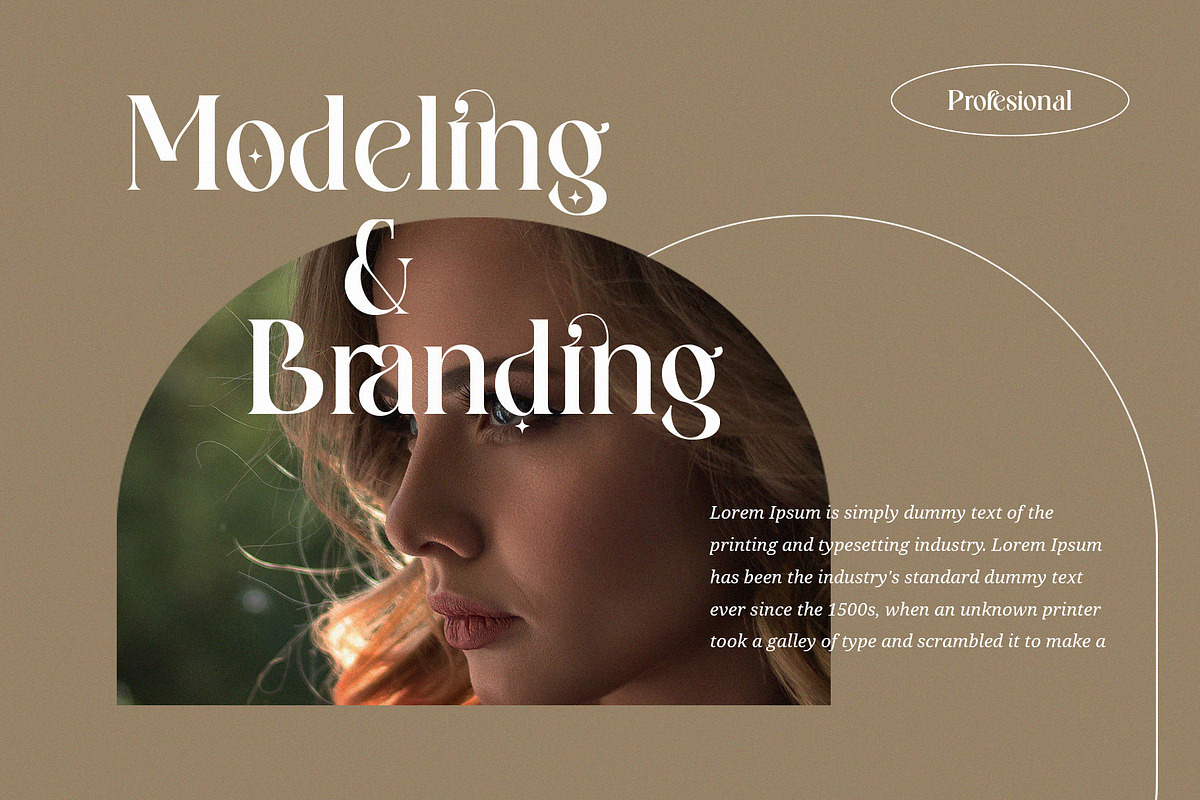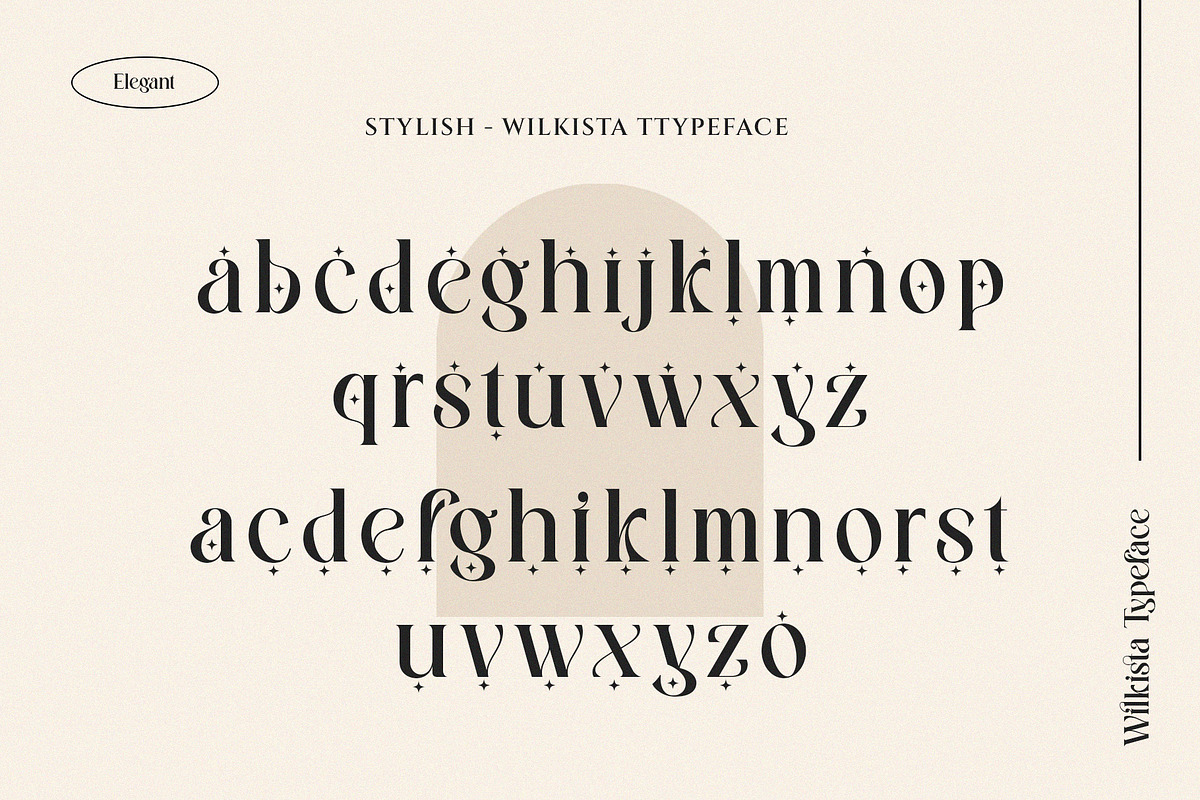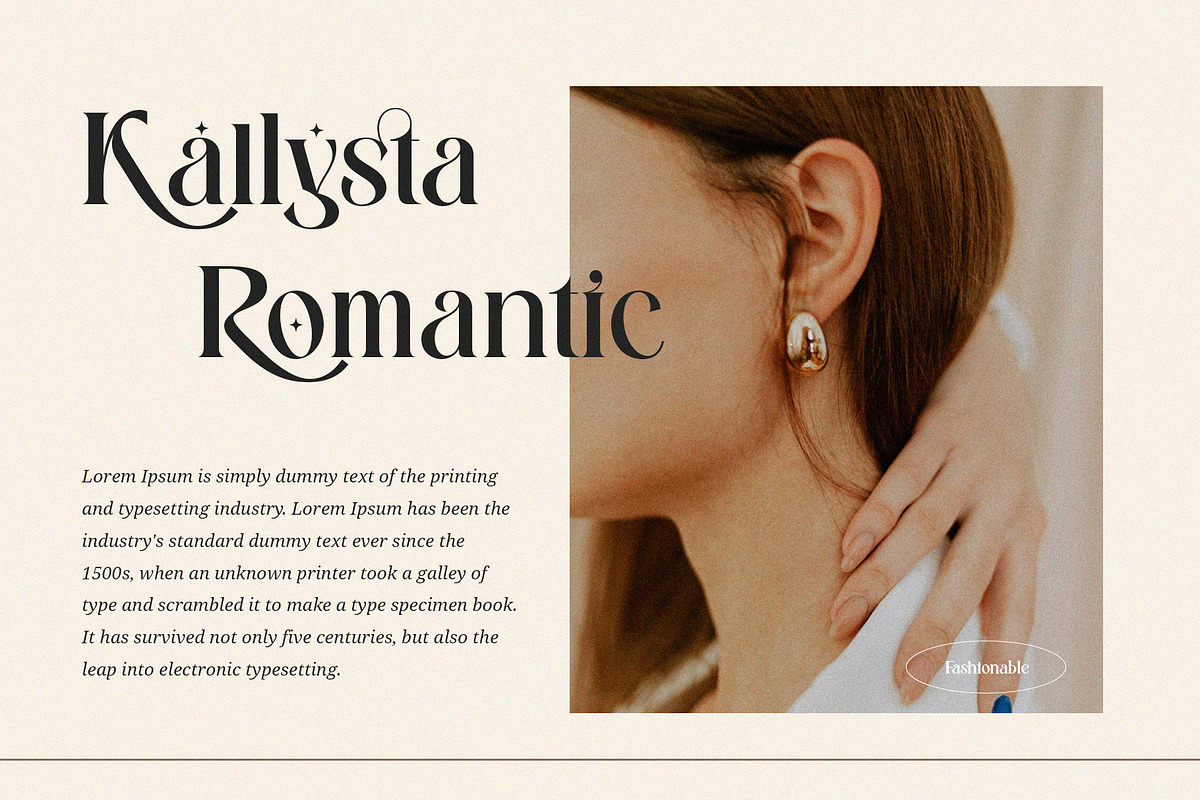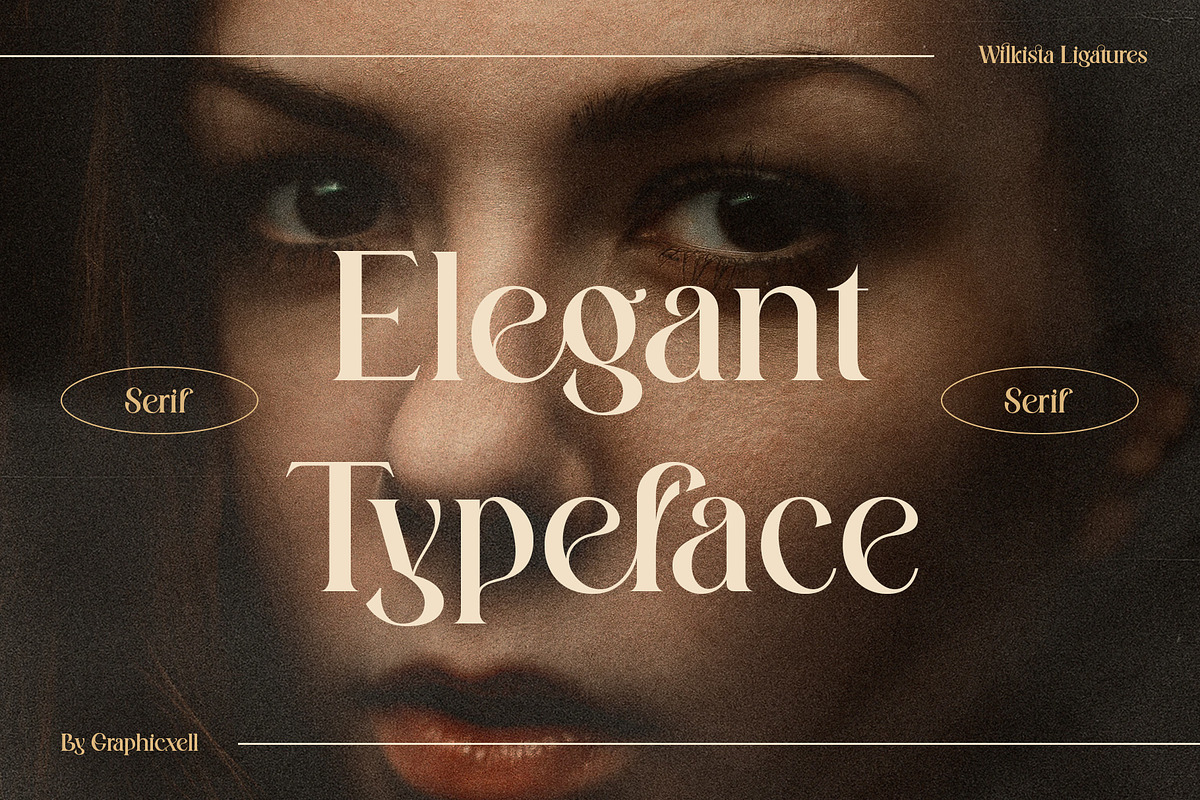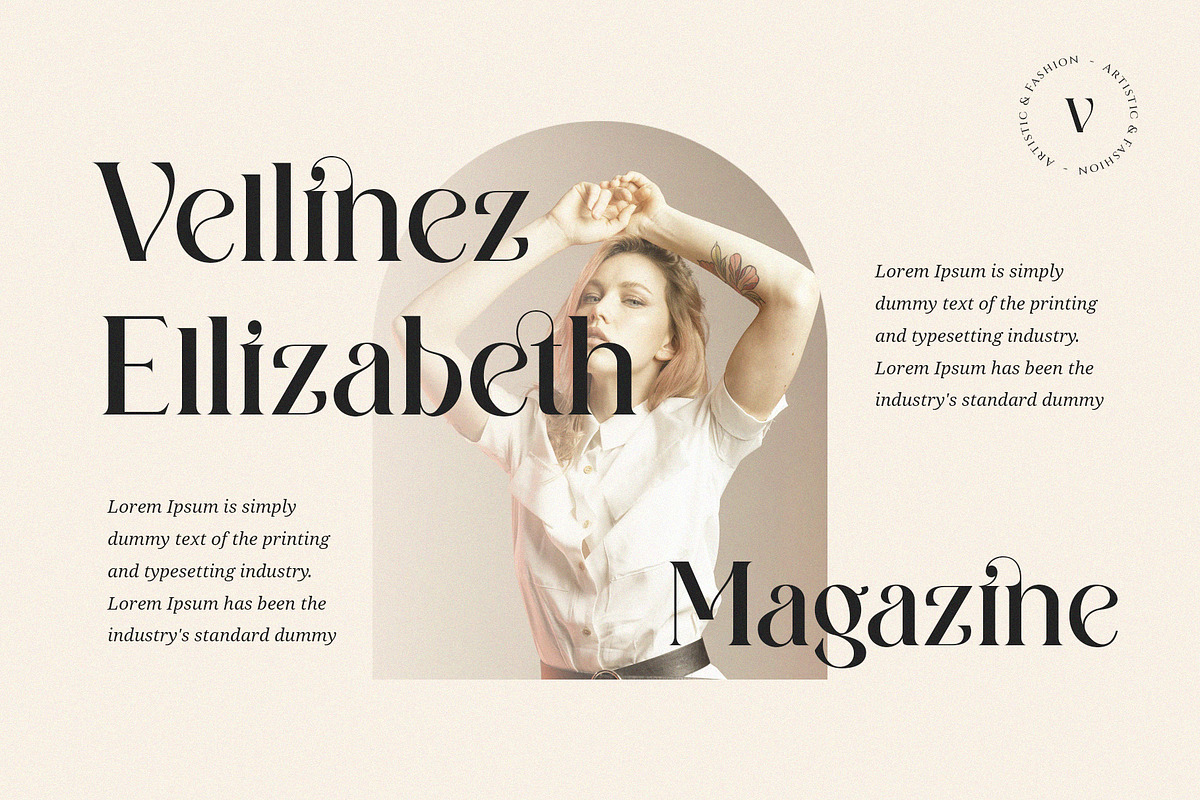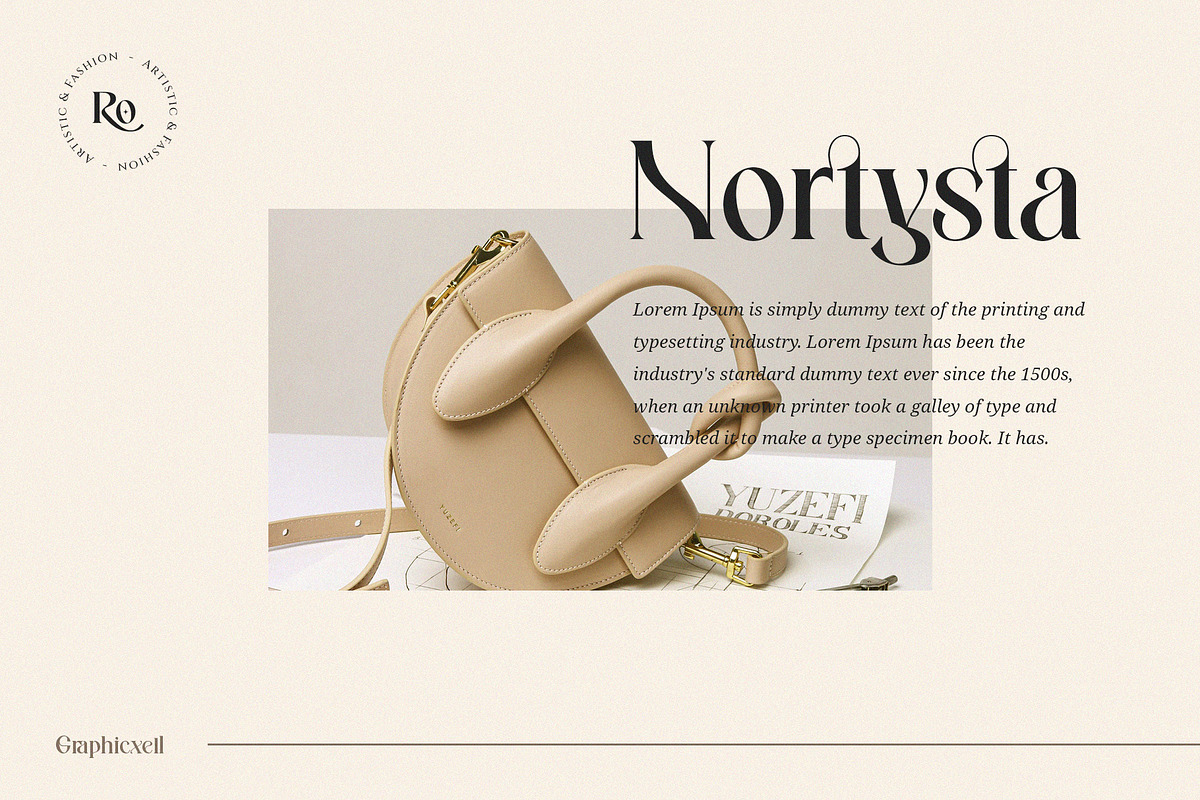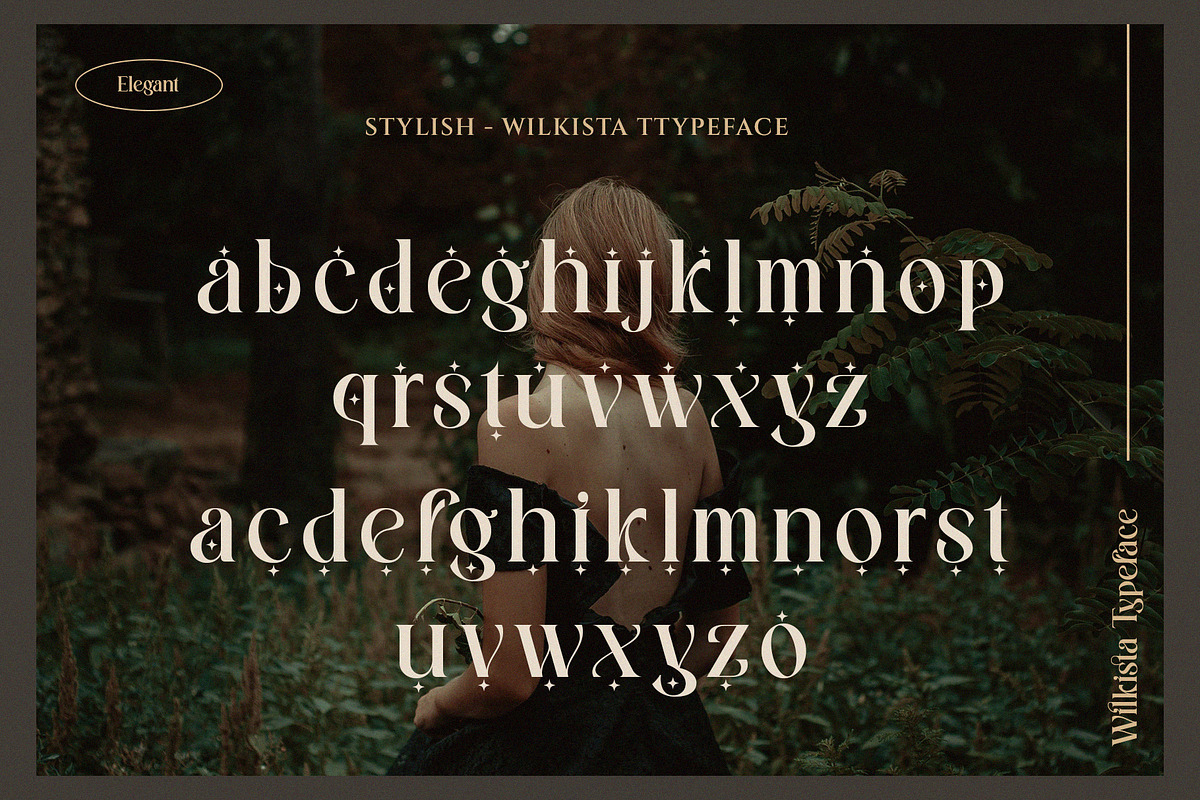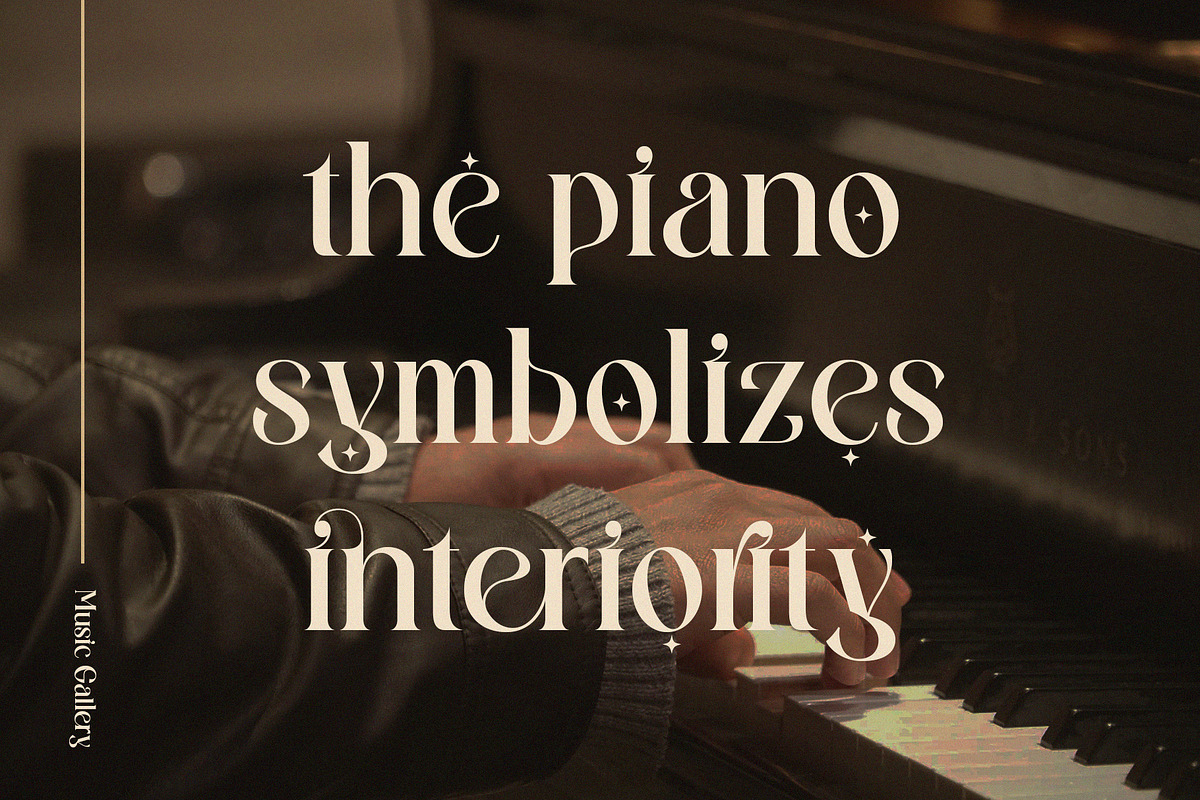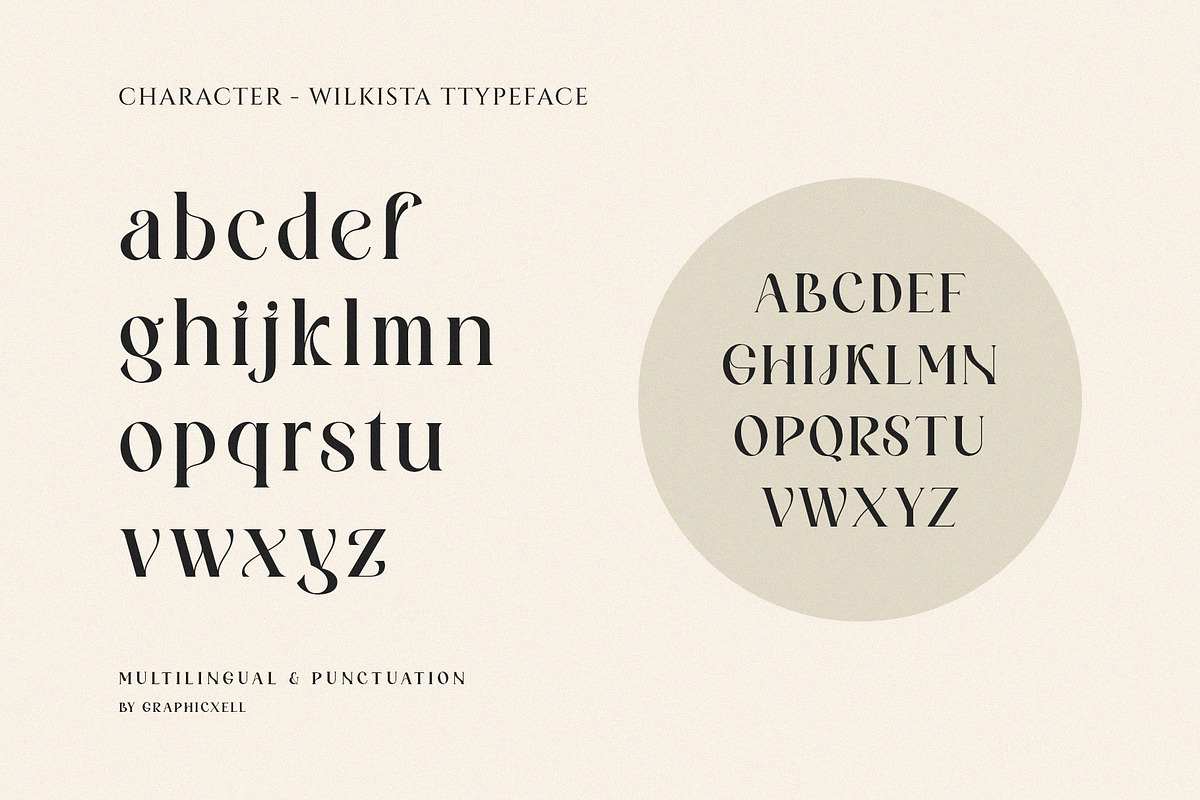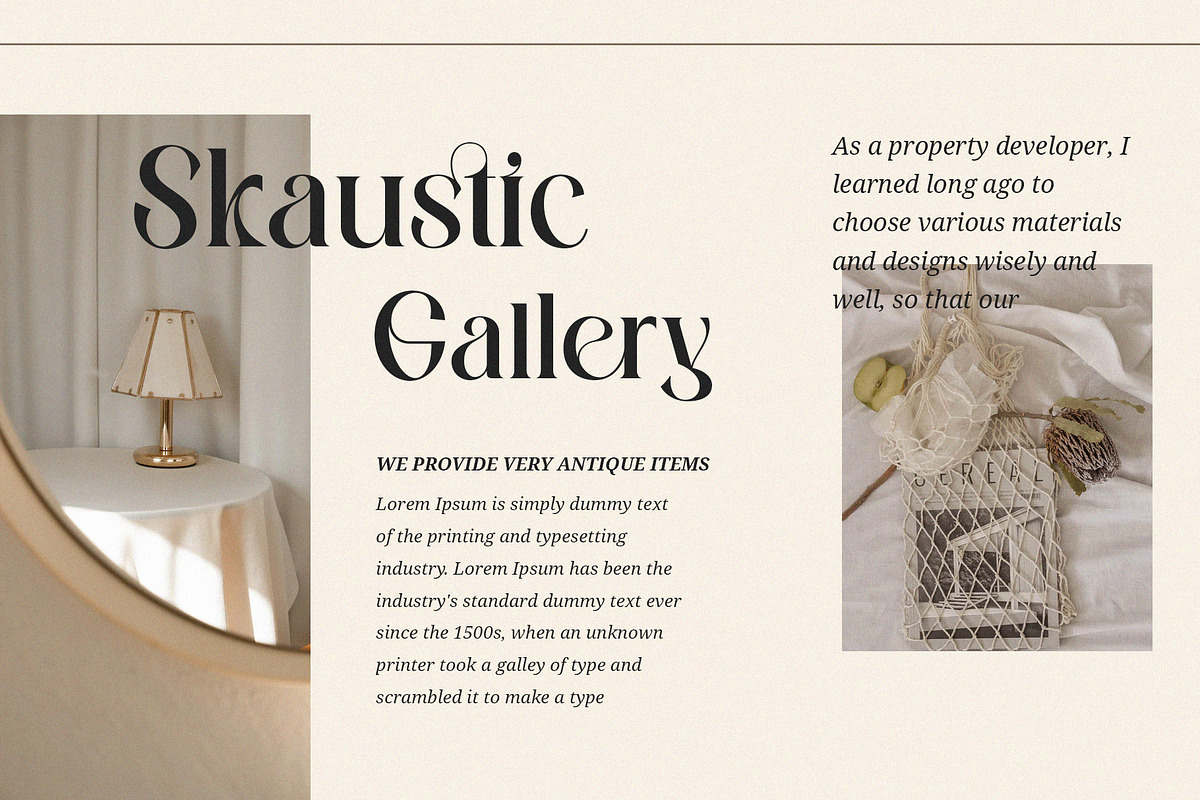
Wilkista - Ligature Typeface
Wilkista Stylish Ligature Typeface inspired by the famous minimalist logo perfect for the purposes of designing templates, brochures, videos, advertising branding, logos and more
Fonts include multilingual support